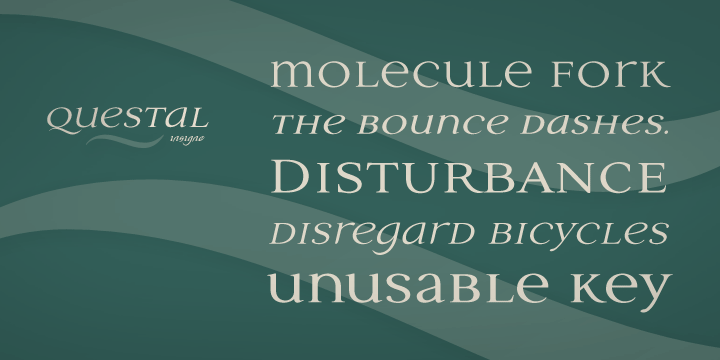
Questal is a display serif font family. This typeface has six styles and was published by Insigne Design.
Questal is an intriguing unicase serif.
The face appears rather eccentric, yet it still retains a refined character. The typeface is wider than most, but not to the degree that Aviano is extended. The font includes some interesting OpenType alternate characters to extend the quirky quality of the letterforms even further.
If unicase isn’t your thing, the Questal family also includes a small caps variant for more traditional uses. Use Questal for eye-catching and distinctive logotypes or headlines.